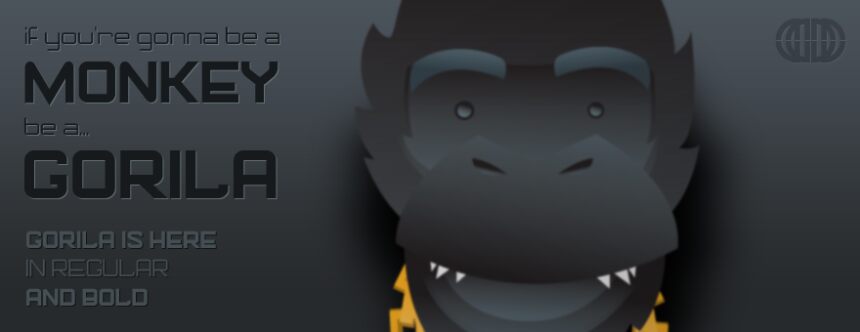
Gorila Bold
This is a heavy, chest-beating, banana pounding beast of a font.
This font is meant for ad type, logos, or just plain monkeying around. It might even give you a dose of potassium.